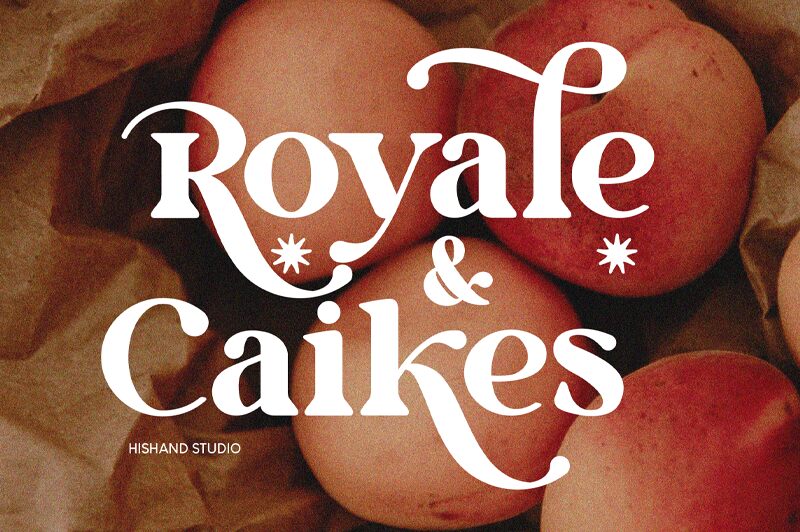
Royale & Caikes font by Hishand Studio is a striking serif typeface characterized by its bold elegance. This font commands attention with its intricate curves and refined details, making it ideal for creating eye-catching headlines and sophisticated branding materials.
Its bold style enhances readability while exuding an aura of sophistication, perfect for luxury products, editorial designs, or any project where classic elegance is key. Embracing both tradition and modernity, Royale & Caikes stands out in any design landscape.